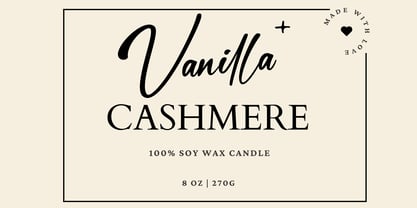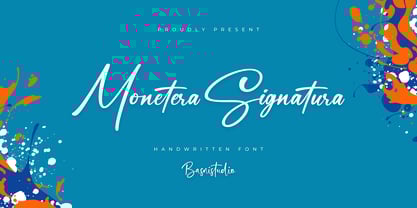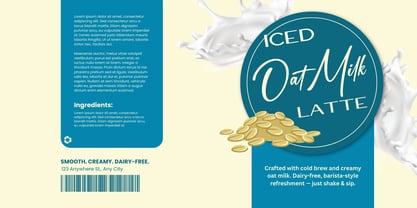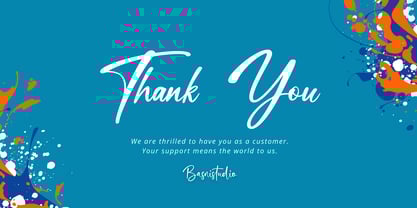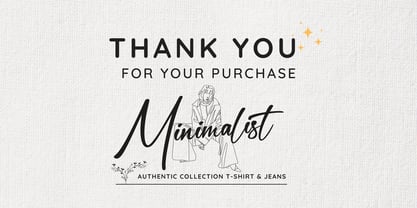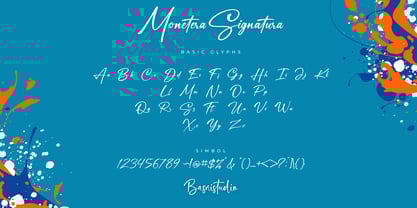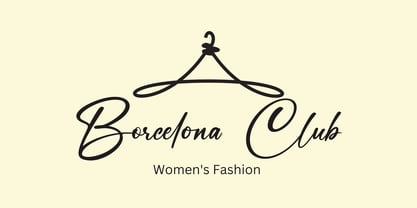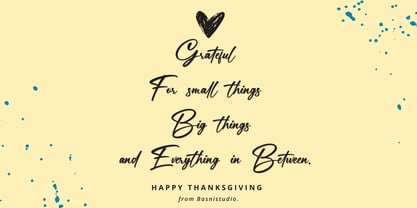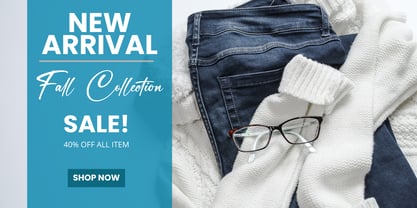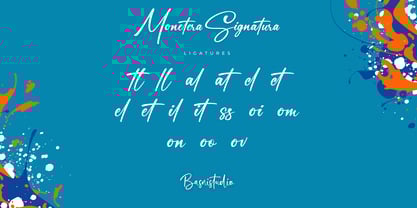
Monetera Signatura
by Basnistudio
The Monetera Signatura Font Family was designed by Bery Arisandi and published by Basnistudio. Monetera Signatura contains 1 styles.
Introducing Monetera Signatura a Handwritten Font that adds a elegant, versatile touch to everything from branding and social media to invitations and packaging.
Elegant & Versatile – Perfect for logos, quotes, greeting cards, and more
Authentic Handwritten Feel – Created with real pen strokes for a natural look
Whether you’re building a powerful brand identity or crafting a standout logo, Monetera Signatura a Handwritten Font
gives you the creative edge you need.
Uppercase & lowercase letters
Ligature
Numbers & punctuation